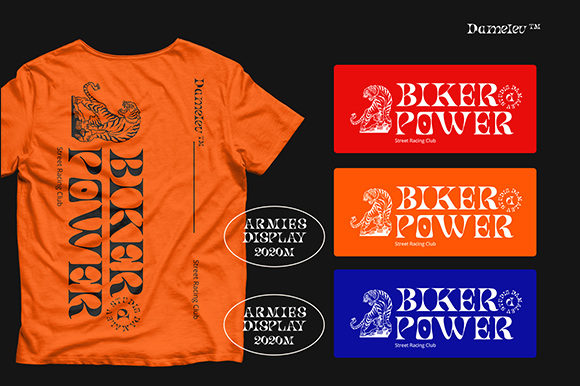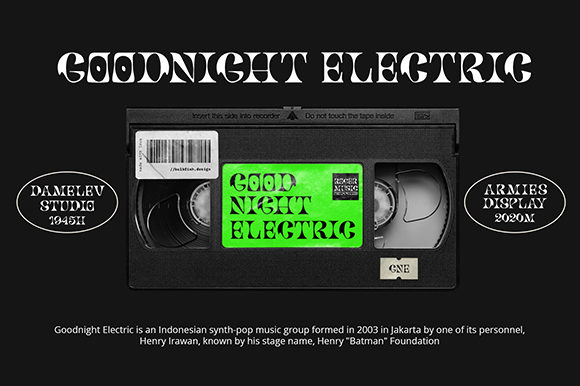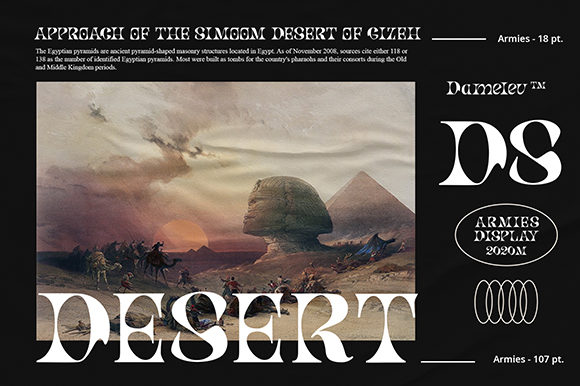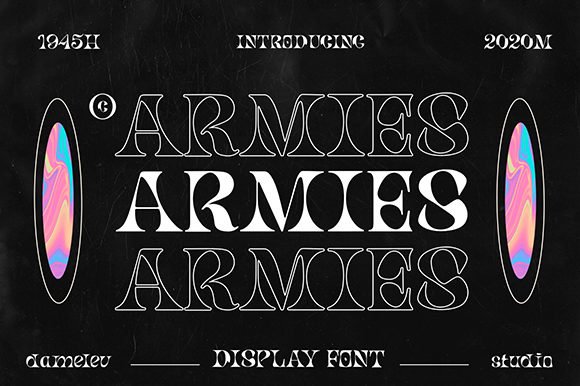
Introduction to Armies Font
Armies is a spectacular display font.
It works perfectly for creative project such as logo, T-shirt, apparel, badge, invitation, packaging,headline, poster, magazine, greeting card, wedding invitation and more .
Armies Font offers exceptional quality and versatility, making it a valuable addition to your design toolkit. Whether you’re creating for personal projects or commercial use, Armies Font delivers professional results.